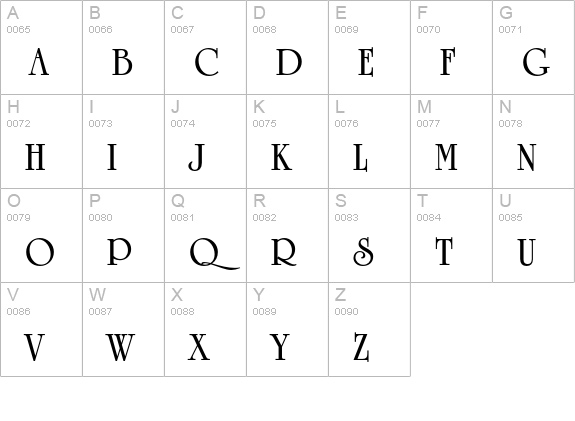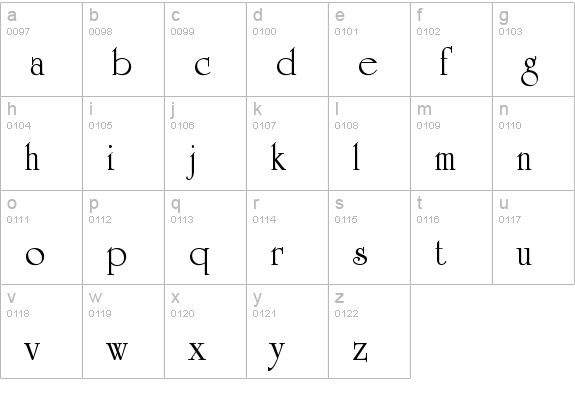
University Roman Bold is a strong, high-contrast variant in the University typeface family \xE2\x80\x94 well suited to headlines, attention-grabbing titles, and strong calls-to-action.
University Roman Bold is a timeless and classic font that exudes elegance and sophistication. With its bold and confident letterforms, this font is perfect for creating impactful headlines, titles, and logos. The strong and sturdy characters make a bold statement, while still maintaining a sense of professionalism and refinement. What makes University Roman Bold even more appealing is that it is freely available to download at FontsMarket.com. This means that you can instantly add this stunning font to your design arsenal without any cost. Whether you are a student, a professional designer, or someone who simply appreciates beautiful typography, this font is a must-have. The versatility of University Roman Bold allows it to be used in a variety of design projects. From editorial layouts to branding materials, this font can elevate any design and add a touch of sophistication. Its clean and legible letterforms ensure that your message is conveyed clearly and effectively. Whether you are working on a print project or a digital design, University Roman Bold is a font that will never go out of style. Its timeless appeal ensures that it will remain a popular choice among designers for years to come. So, why wait? Head over to FontsMarket.com and download University Roman Bold for free today!